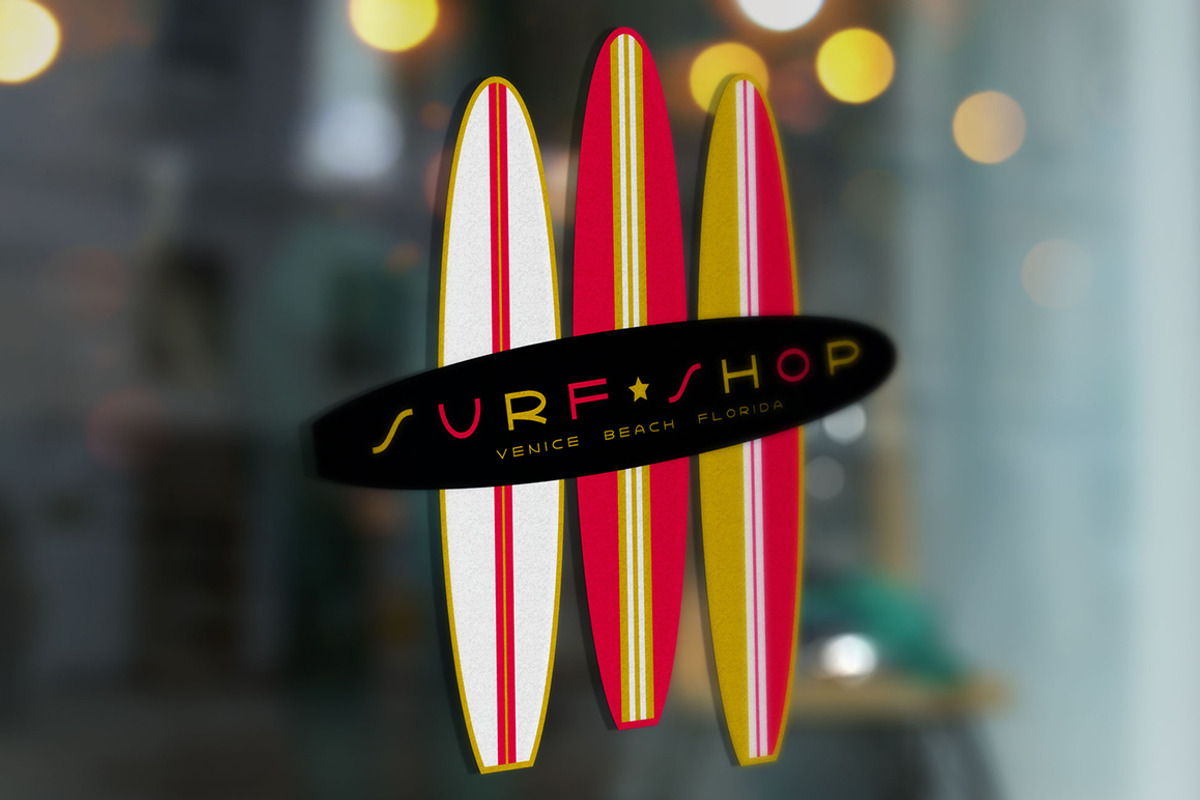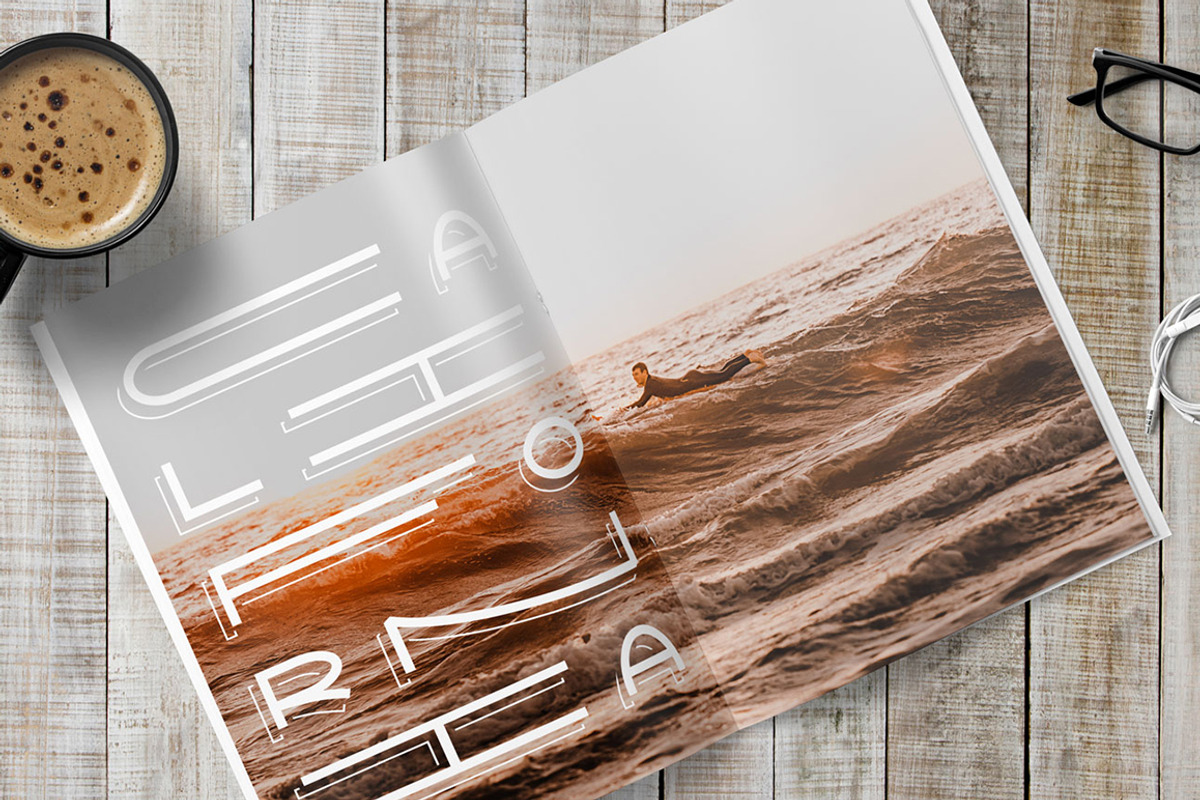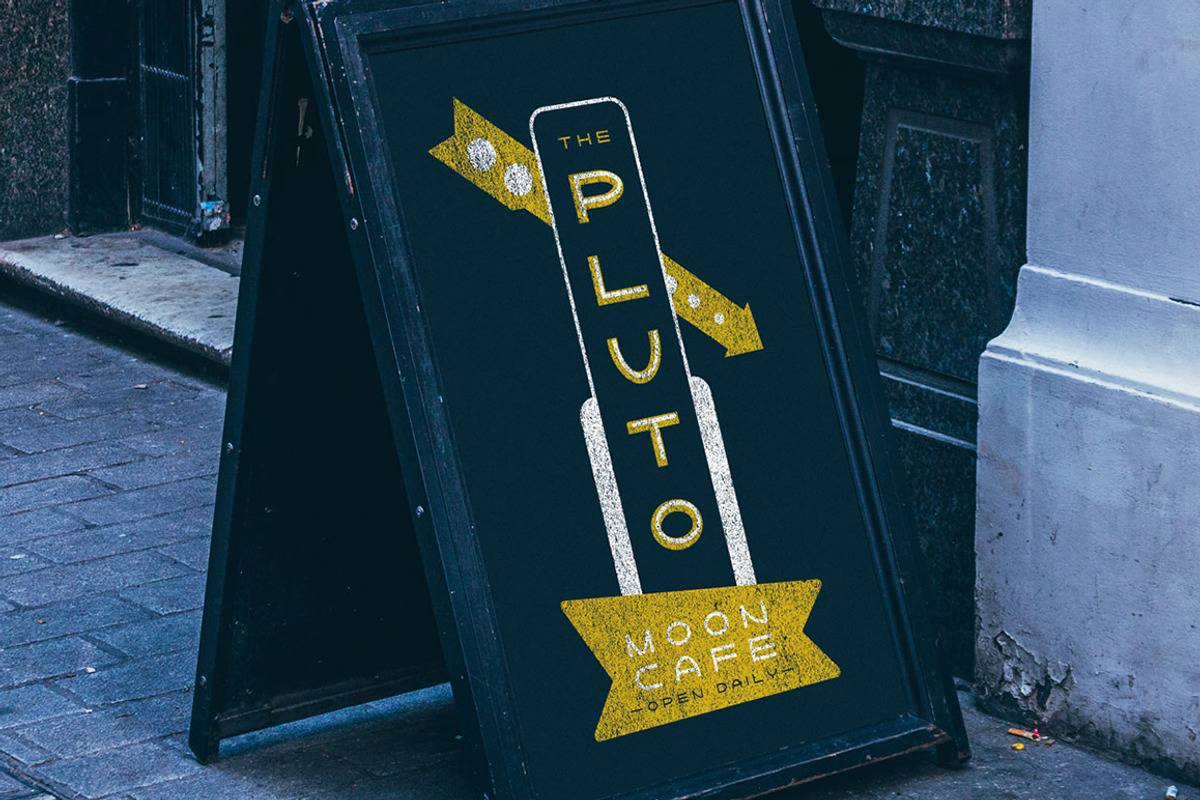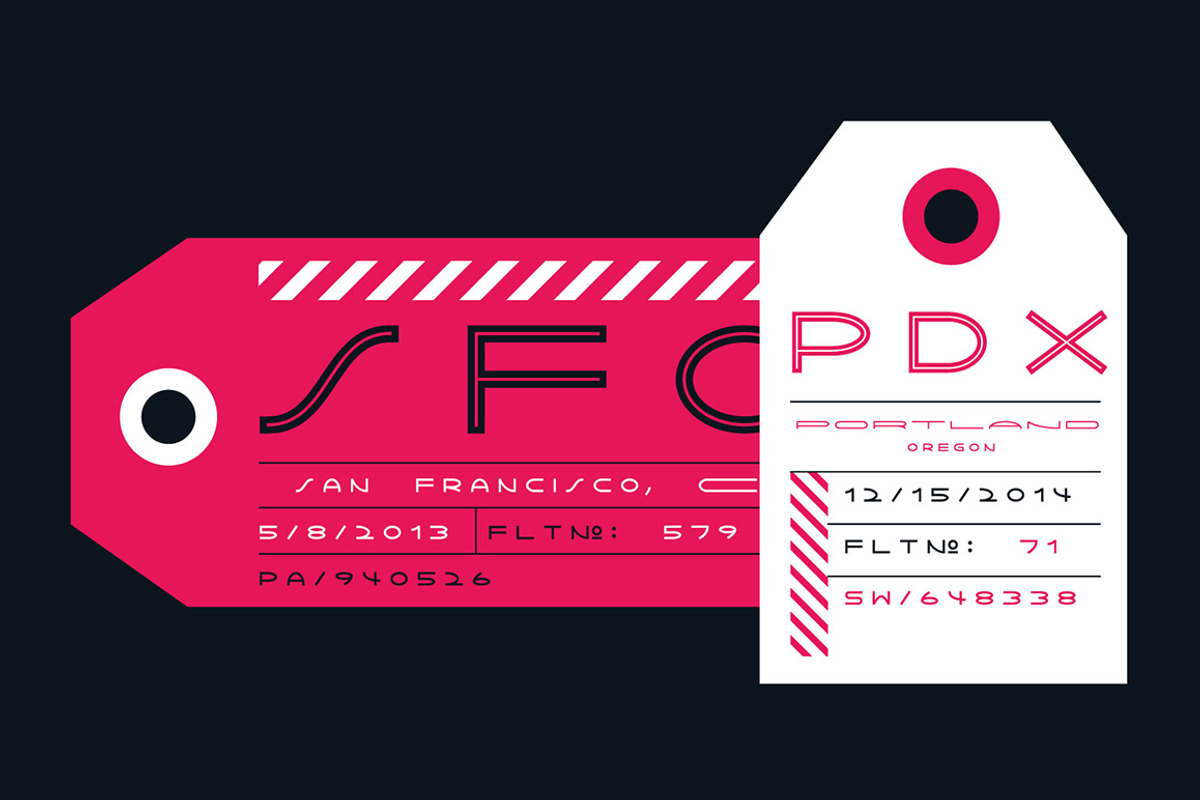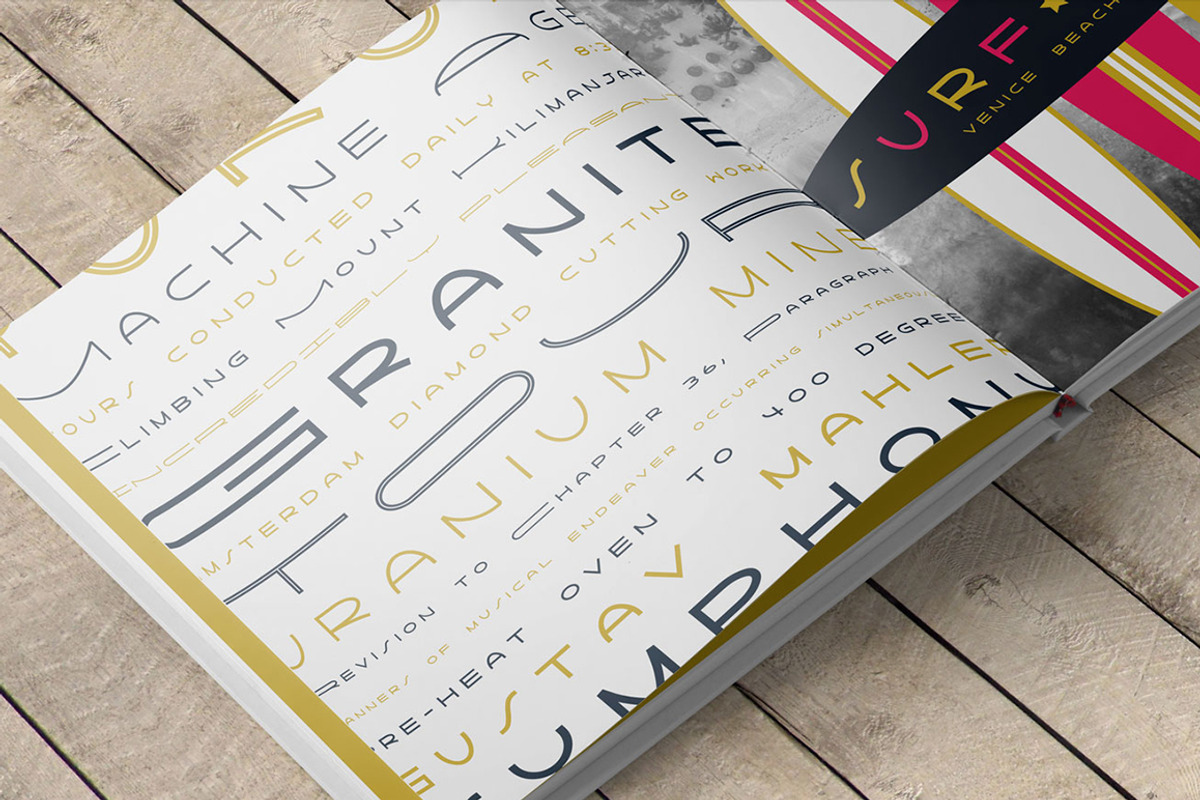
Lightyear Typeface
Lightyear Typeface by Thomas Ramey Designs is a font selected for branding, posters, packaging, typography.
- The combination of super extended capitals with the all-capped lowercase makes for a unique and interesting result.
- This typeface is also packed with a few alternate letterforms, 2 sets of arrows, and glyphs for various uses.
- Lightyear Light
- Lightyear Regular
- Lightyear Inline